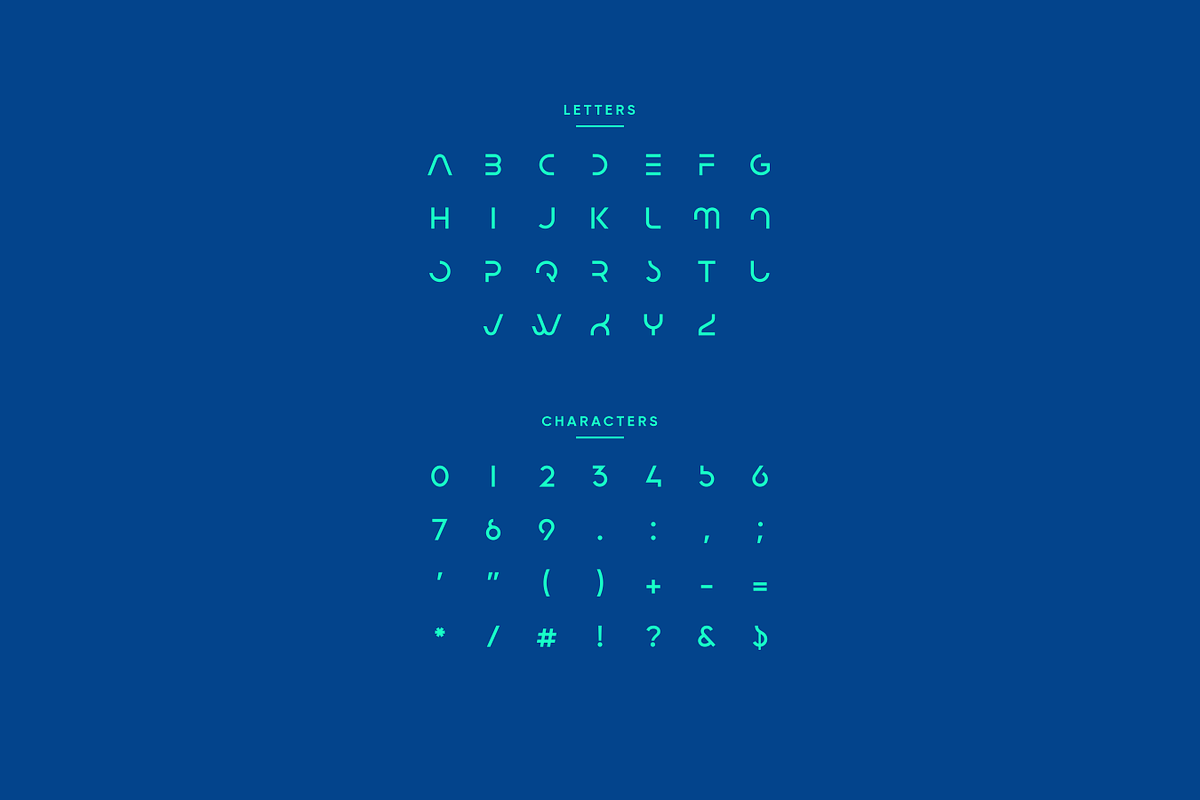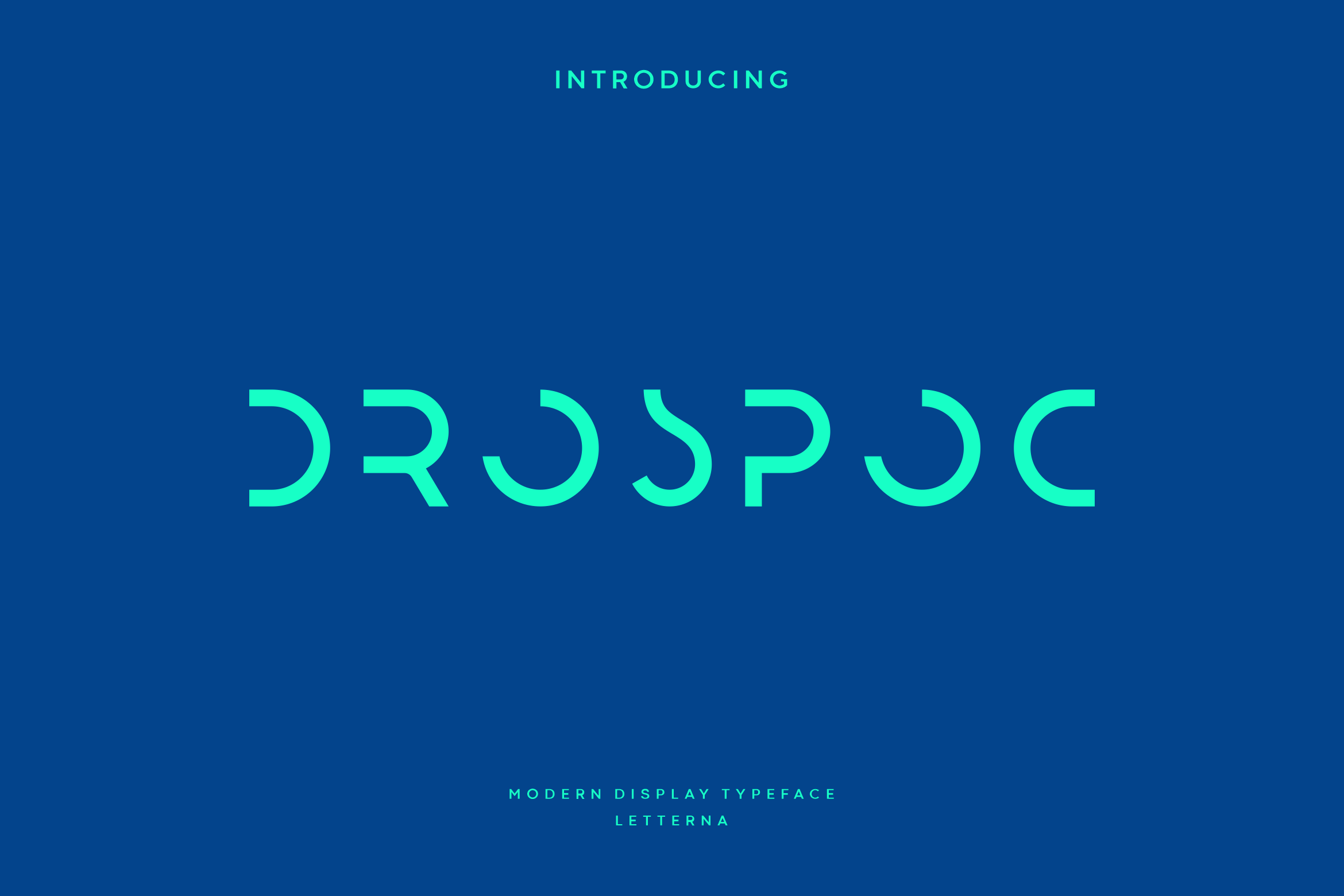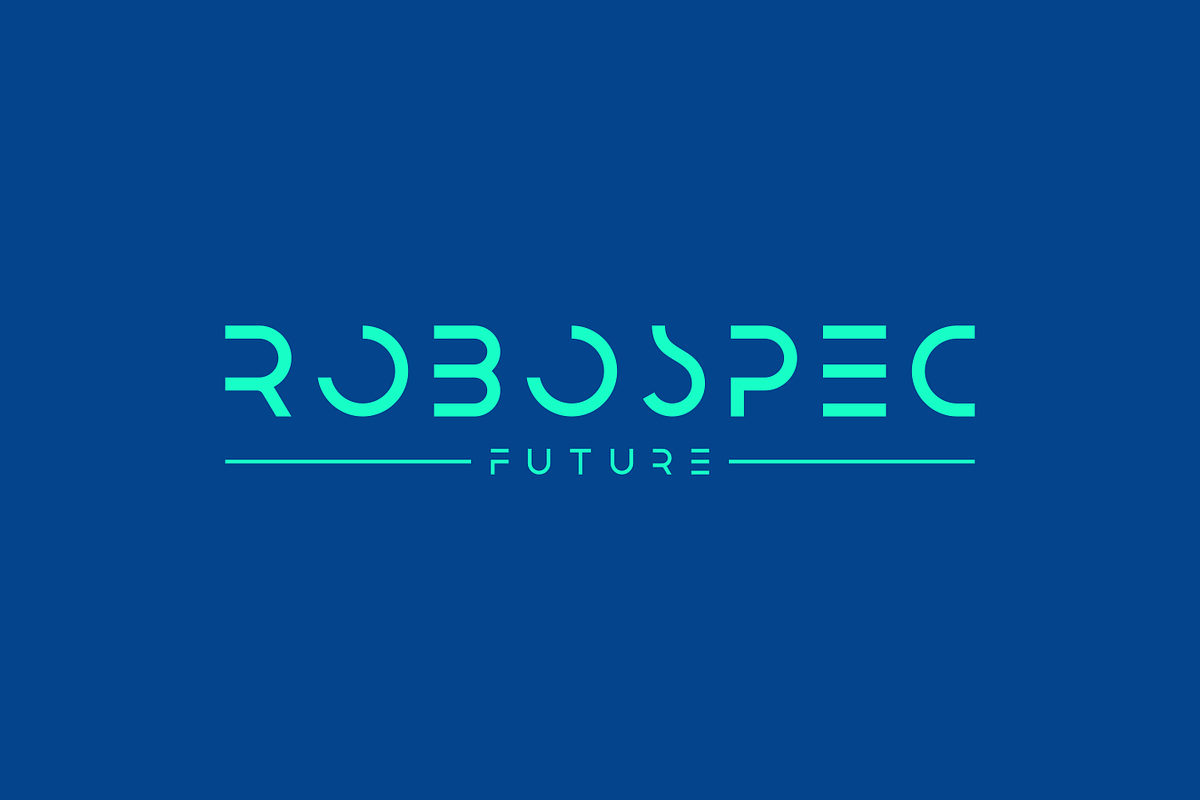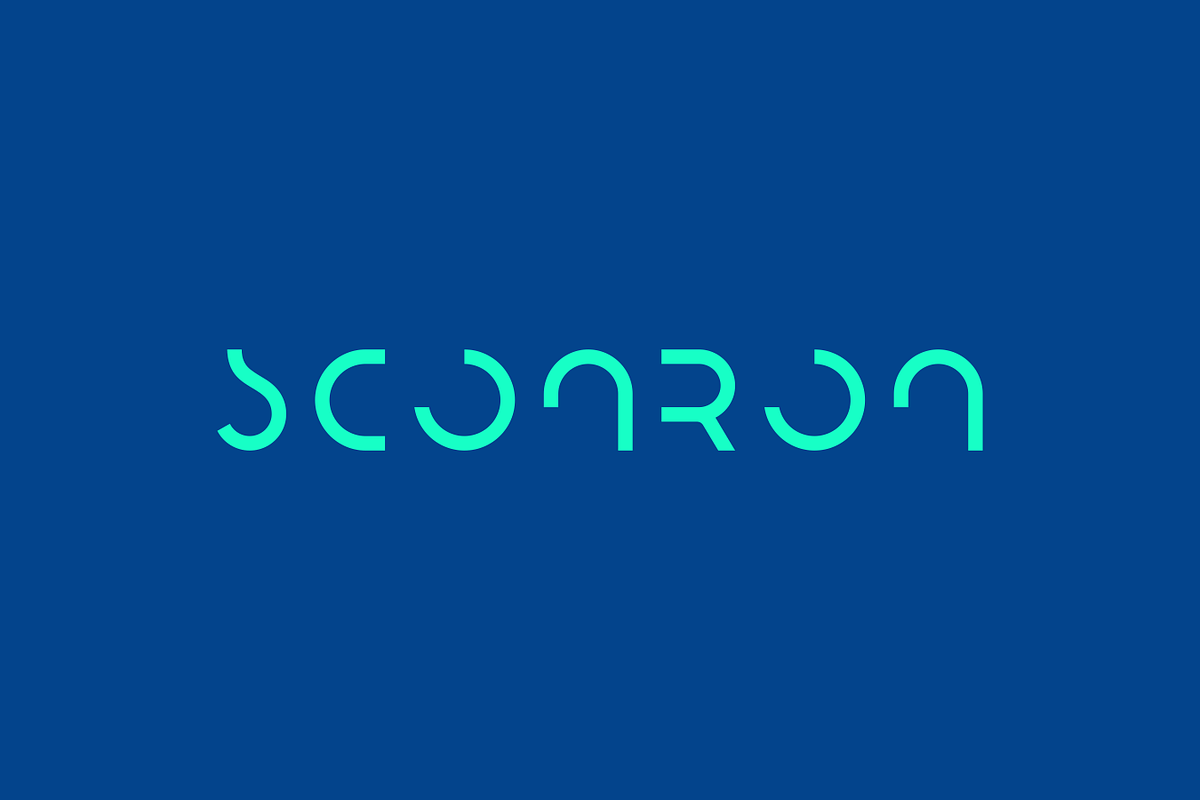
Drospoc - Modern Futuristic Typeface
Drospoc is a font that is designed for the modern age. With its focus on technology, gadgetry, and the metaverse, it is the perfect choice for anyone who wants to create stylish and innovative designs. This font is also perfect for any project related to sci-fi, space, or gaming. Its futuristic look and feel make it the perfect choice for creating digital interfaces, video game titles, and other digital content that needs to convey a sense of cutting-edge technology.